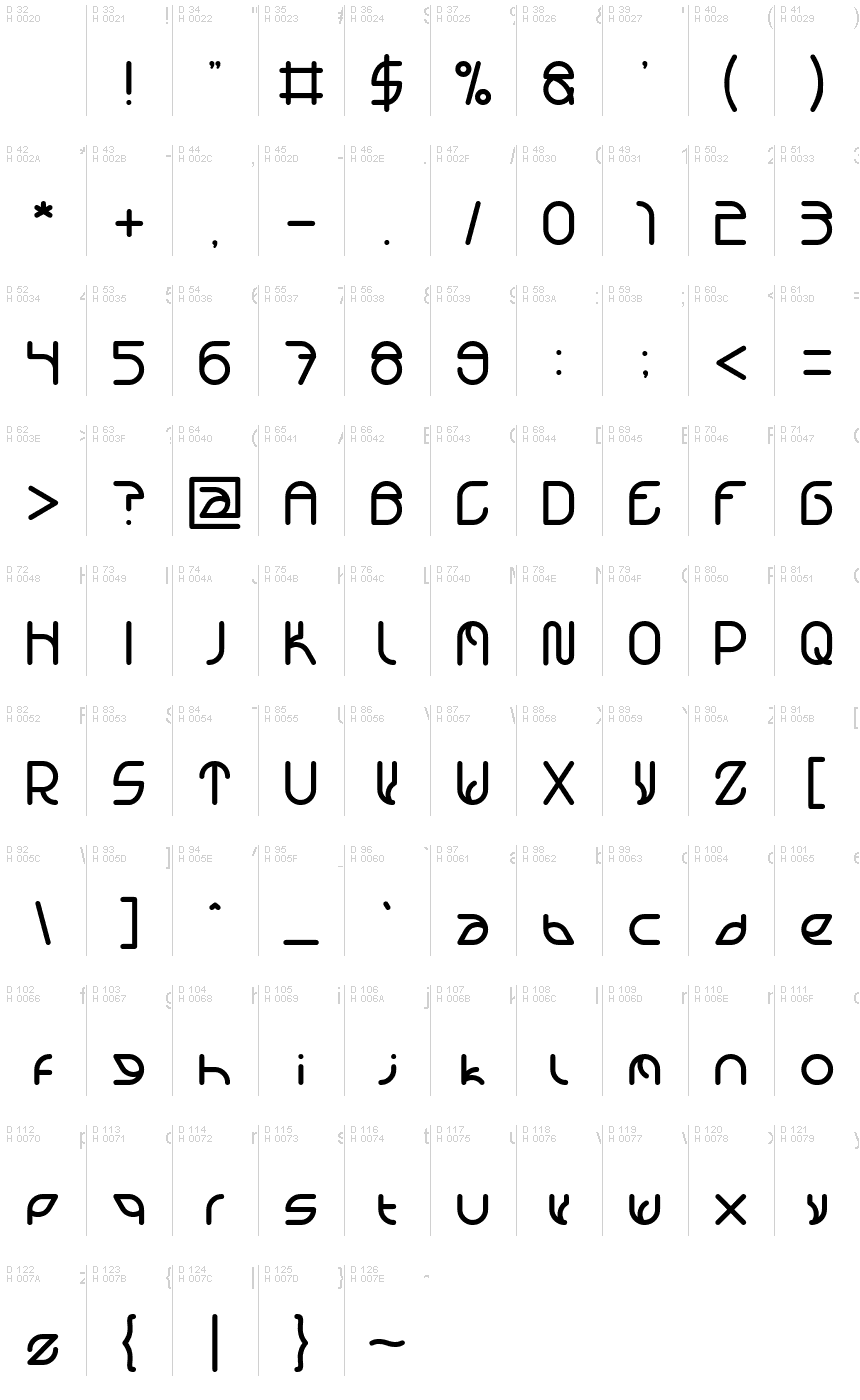
VICTORY
VICTORY العائلة يتكون من 8 الخطوط
Victory is a sleek and modern display font designed by weknow. Its semi-light weight and futuristic style make it perfect for projects that require a bold yet elegant touch. The font's clean lines and geometric shapes add a touch of sophistication to any design, making it ideal for branding, logos, titles, and headlines. With its condensed width, Victory is also suitable for designs that require space-saving typography such as posters or billboards. Take your projects to the next level with Victory - the go-to choice for contemporary design.